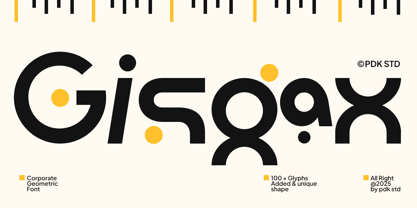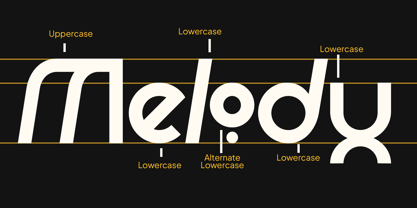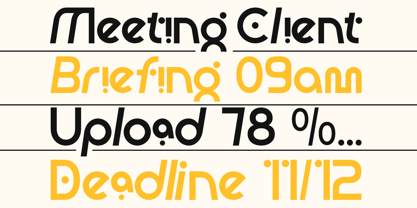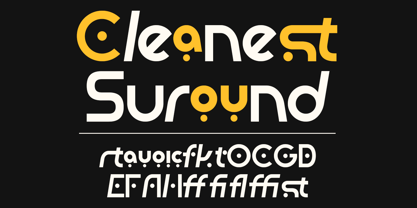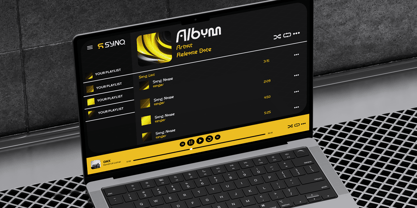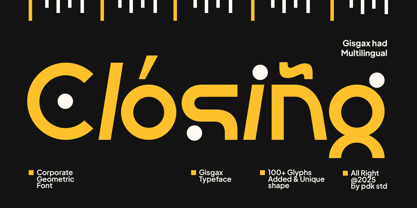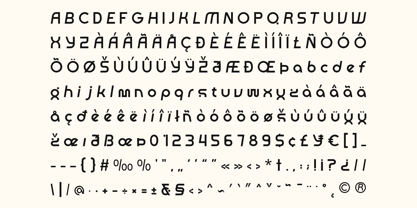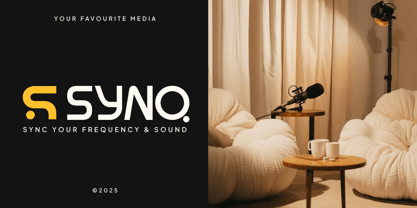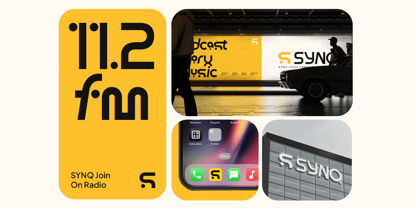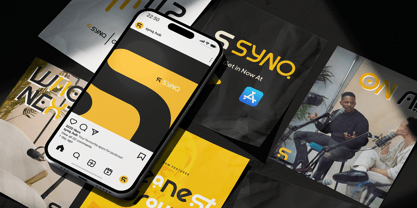
Gisgax
The Gisgax Font Family was designed by Sagara Nararya and published by Pandeka Studio. Gisgax contains 1 styles. More about this family
Gisgax is a modern geometric display font designed for bold corporate identity, digital branding, and tech-driven communication. Its clean modular shapes, balanced line structure, and unique futuristic character details create a strong professional presence suitable for logos, UI design, advertising, and headline typography.
This font comes in 1 style: Regular, featuring uppercase, lowercase, numerals, punctuation, and 16+ alternate ligatures to enhance creativity and variation. Whether for corporate presentations, digital media, apps, or innovative branding, Gisgax delivers a sleek and forward-thinking visual tone.
• 16+ alternate and ligatures